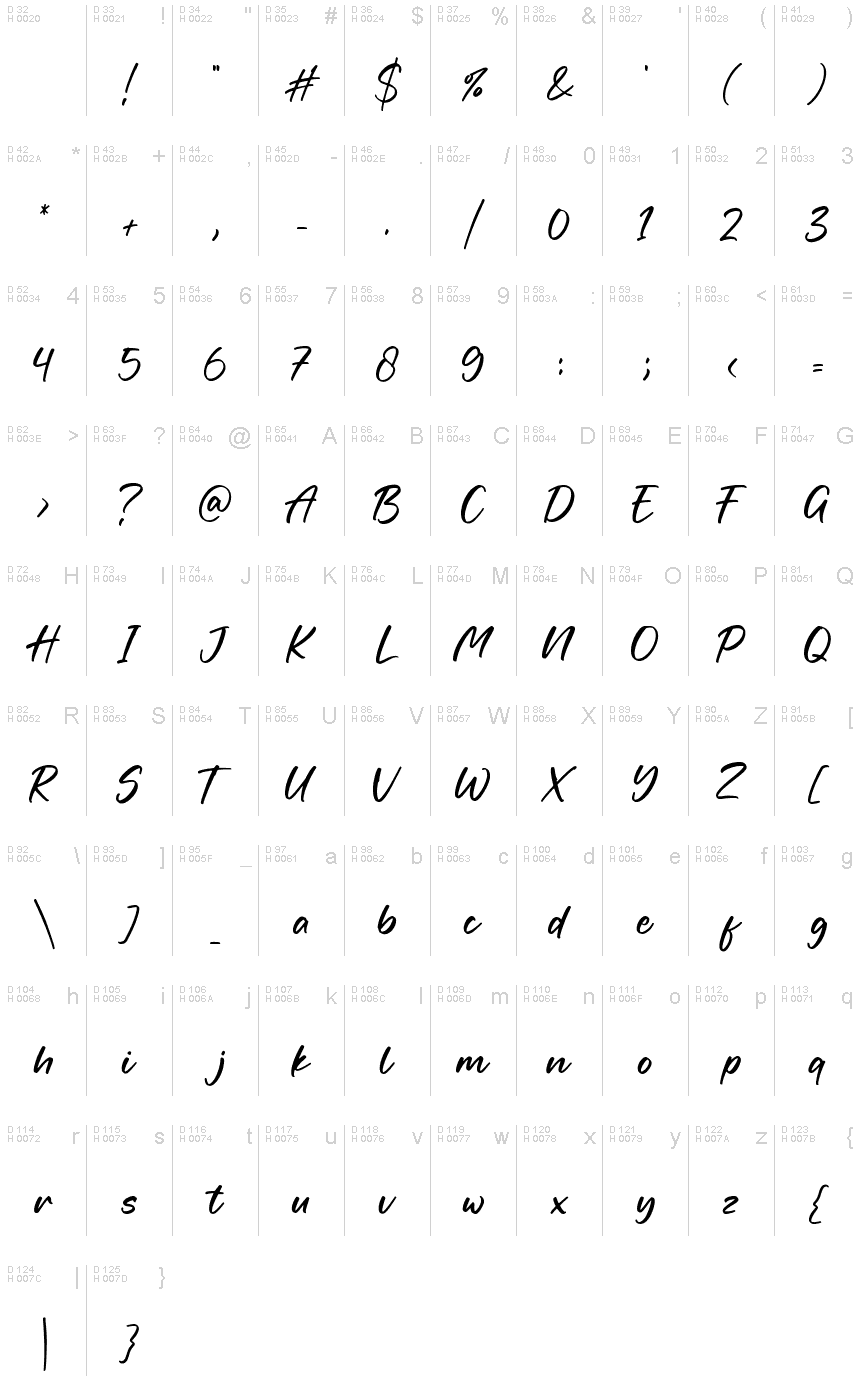
Fortune
Fortune, designed by Aestherica Studio, is a delightful semi-light handwritten font that exudes charm and simplicity. With its cute and romantic touch, this font is perfect for a variety of projects.
Whether you're designing wedding invitations, crafting heartfelt greeting cards, or creating whimsical social media posts, Fortune will bring a beautiful and refreshing look to your designs. Its playful strokes and gentle curves make it ideal for children's book illustrations or adding a touch of whimsy to product packaging.
No matter the project, Fortune is sure to captivate with its endearing style.